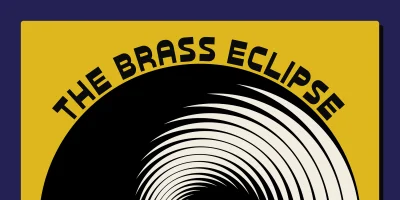
Word From Radio Font
Word From Radio Font is perfect for radio station branding, podcast marketing materials, vintage broadcasting logos, audio equipment advertising, retro music industry graphics, old-school DJ promotional content, classic radio show titles, and nostalgic communication campaigns. This authentically broadcast-inspired typeface excels in projects requiring vintage radio charm and audio communication authority where classic broadcasting meets contemporary media design.
What makes Word From Radio Font exciting is its nostalgic interpretation of golden age radio aesthetics through carefully crafted letterforms that capture the warmth and intimacy of classic radio broadcasting. The font features distinctive characters with vintage broadcast proportions and audio-inspired details that convey trust, familiarity, and the timeless appeal of voice communication. Its broadcasting character makes it perfect for audio media brands and communication companies celebrating the enduring power of spoken word and radio's intimate connection with audiences.
Word From Radio Font family includes multiple weights and broadcast variations that enhance its radio appeal while providing design flexibility for audio media and vintage communication applications. The family typically offers light, regular, medium, semibold, and bold weights, along with vintage alternates, broadcasting symbols, and audio-themed ornaments that complement radio and vintage media design themes perfectly.
Whether you're developing radio station identity, creating podcast branding, or designing vintage audio equipment marketing, Word From Radio Font provides the perfect broadcast solution for projects celebrating audio communication and vintage radio culture. This font's nostalgic appeal and broadcasting heritage make it essential for media companies and audio content creators honoring the golden age of radio and voice communication.
The authentically broadcast letterforms and vintage proportions of Word From Radio Font create immediate connections to classic radio culture while maintaining excellent readability across modern audio media applications. Its distinctive broadcasting personality and radio symbolism make it an invaluable tool for designers working with audio media, podcasting, and vintage communication brands. Download Word From Radio Font today and broadcast vintage charm in your creative projects with this authentically radio-inspired typeface that perfectly captures the intimate warmth and timeless appeal of classic radio broadcasting.